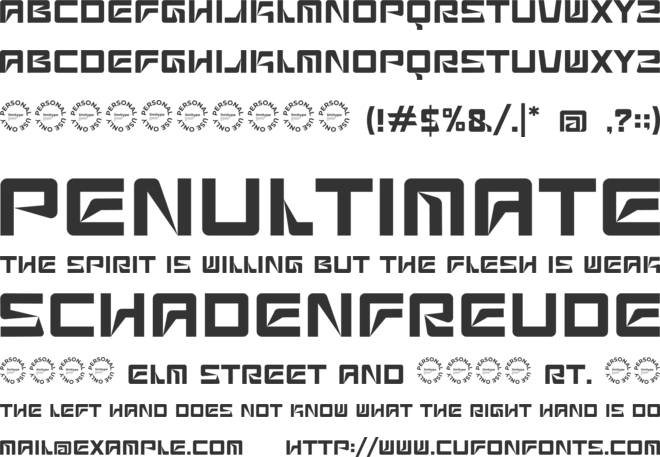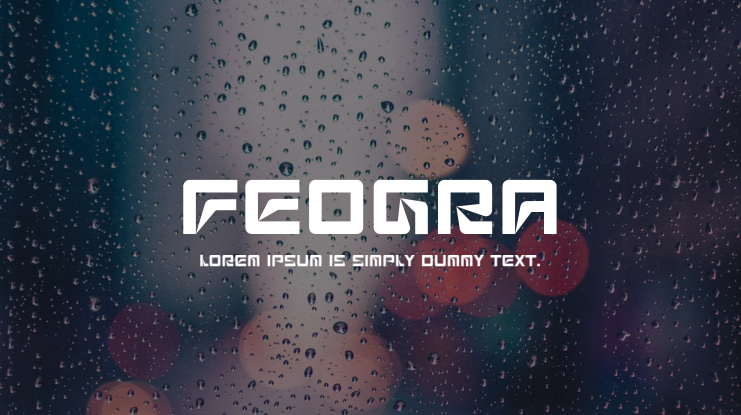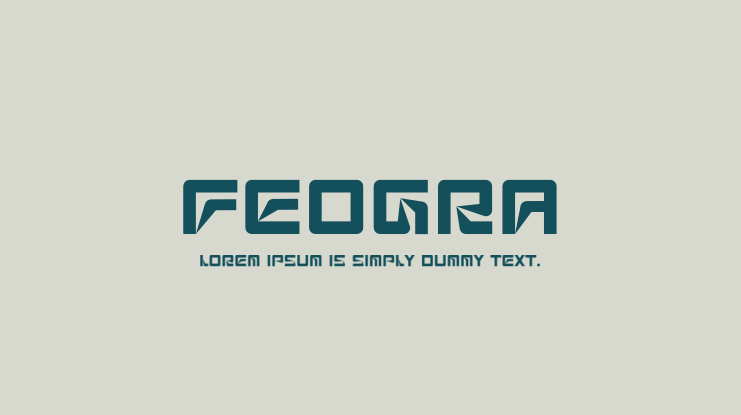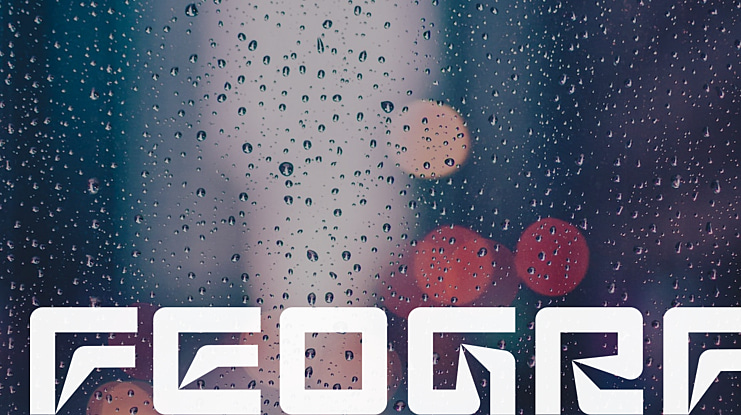
Feogra Font
Feogra is a Typeface that draws inspiration from the geometric shape of a robot. Its modern design gives it a futuristic and unique appearance, making it suitable for modern designs that require a bold and prominent typeface. This font can be applied to various design purposes such as posters, magazines, and more. Feogra includes uppercase letters, numbers, symbols, and support for multiple languages.